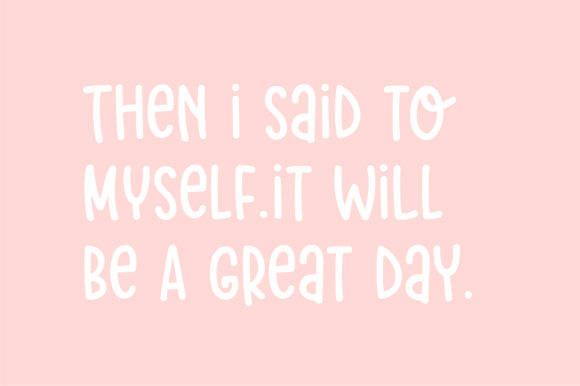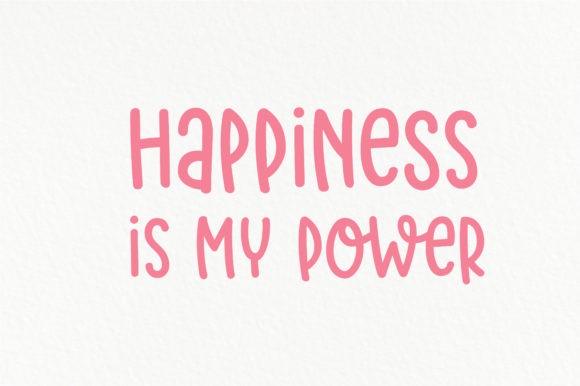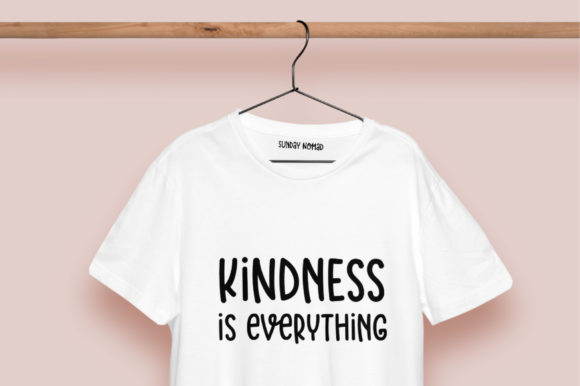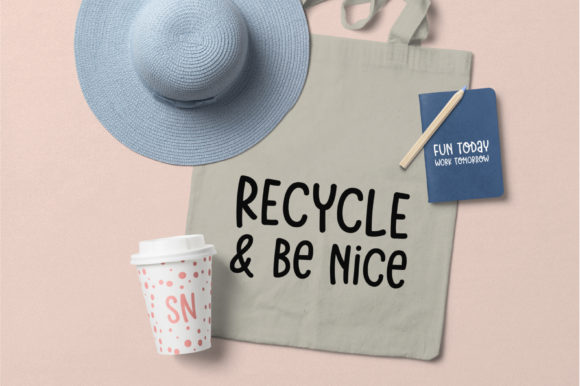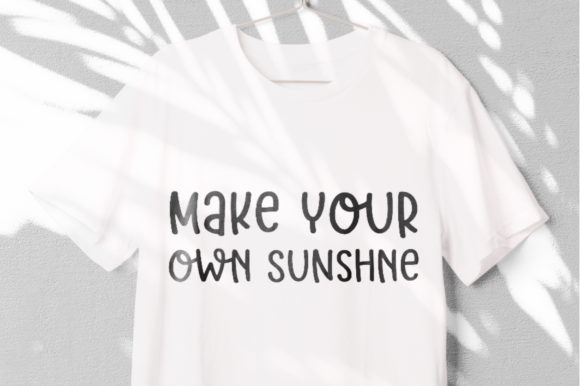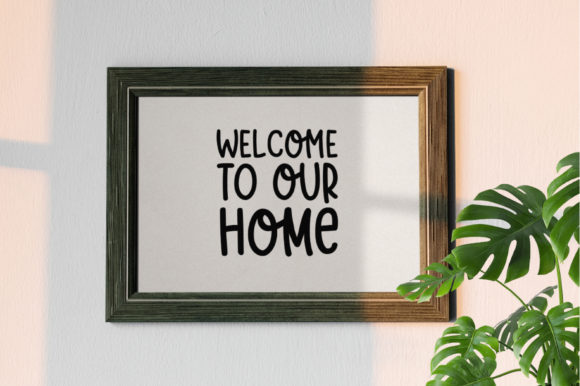
Introducing Calathea Font: The Charming Display Font for Your DIY Projects
Are you a designer or crafter looking for a unique and authentic font to elevate your DIY projects? Look no further than Calathea Font, a stunning display font that is sure to capture the hearts of anyone who lays eyes on it. This gorgeous font is the result of a beautiful pairing of a brush pen and pencil, giving it an endearing and genuine feel that is hard to find in digital fonts.
The Story Behind Calathea Font
Calathea Font is more than just a digital font – it’s a work of art that showcases the beauty of hand-crafted typography. The font is created by carefully combining the fluid lines of a brush pen with the precise details of a pencil, resulting in a unique and captivating visual effect. This distinctive approach gives Calathea Font a personality that is both playful and sophisticated, making it perfect for a wide range of DIY projects.
What Makes Calathea Font So Special?
So, what sets Calathea Font apart from other display fonts on the market? Here are just a few reasons why this font is a cut above the rest:
- Unique and Authentic Look: The combination of a brush pen and pencil gives Calathea Font a one-of-a-kind appearance that is both eye-catching and authentic.
- Endearing and Playful: The font’s playful and whimsical feel makes it perfect for DIY projects that require a touch of personality and charm.
- Highly Versatile: Calathea Font can be used for a wide range of projects, from crafting and scrapbooking to branding and advertising.
- Easily Readable: Despite its unique and artistic design, Calathea Font is still highly readable, making it perfect for use in titles, headings, and other display text.
How to Use Calathea Font in Your DIY Projects
Calathea Font is incredibly easy to use and can be incorporated into a wide range of DIY projects. Here are just a few ideas to get you started:
- Crafting and Scrapbooking: Add a touch of personality to your scrapbook pages or craft projects with Calathea Font’s unique and playful design.
- Branding and Advertising: Use Calathea Font to create eye-catching titles and headings for your brand or business.
- Stationery and Invitations: Add a touch of elegance and sophistication to your stationery and invitations with Calathea Font.
- Digital Art and Illustration: Use Calathea Font to add a touch of whimsy and personality to your digital art and illustrations.
Tips and Tricks for Getting the Most Out of Calathea Font
Here are a few tips and tricks to help you get the most out of Calathea Font:
- Experiment with Different Sizes and Colors: Calathea Font looks great in a variety of sizes and colors, so don’t be afraid to experiment and find the perfect combination for your project.
- Pair with Other Fonts: Calathea Font pairs well with a wide range of other fonts, so try combining it with other fonts to create a unique and eye-catching look.
- Use for Display Text: Calathea Font is perfect for use in display text, such as titles and headings, where its unique and artistic design can really shine.
In conclusion, Calathea Font is a truly unique and special display font that is sure to bring a touch of personality and charm to any DIY project. With its stunning pairing of a brush pen and pencil, this font is both eye-catching and authentic, making it perfect for designers and crafters looking for a font that stands out from the crowd. So why wait? Download Calathea Font today and start bringing your DIY projects to life!